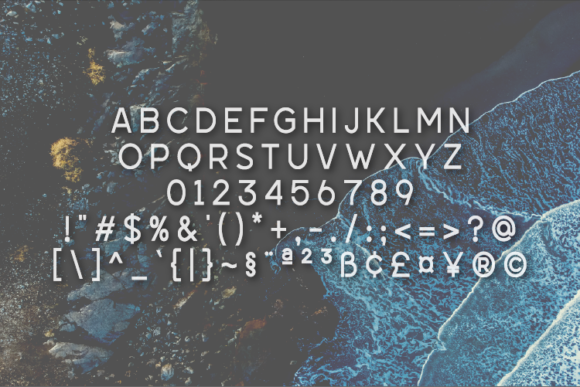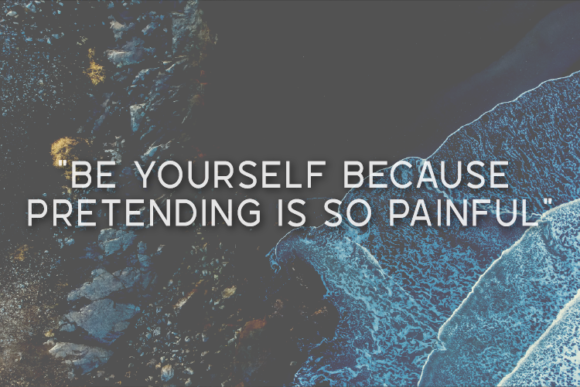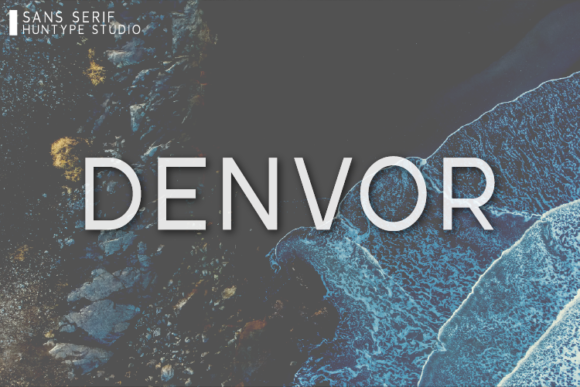
Denvor Font: Elevate Your Designs with Clean and Simple Sans Serif Typography
In the world of typography, a good font can make all the difference in elevating your designs and setting them apart from the rest. For designers and crafters looking for a versatile and visually appealing font, Denvor Font is an excellent choice. This clean and simple lettered sans serif font is perfect for a wide range of projects, from branding and advertising to digital media and crafting.
What is Denvor Font?
Denvor Font is a modern sans serif font that boasts a clean and simple design. Its sleek lines and minimalist aesthetic make it an incredibly versatile font that can be used for a variety of purposes. Whether you’re creating a logo, brochure, or social media graphic, Denvor Font is sure to make a lasting impression.
Key Features of Denvor Font
- Clean and Simple Design: Denvor Font features a clean and simple design that is easy to read and visually appealing.
- Sans Serif: As a sans serif font, Denvor Font is perfect for digital media and projects where a modern look is desired.
- Lettered: Denvor Font is a lettered font, making it perfect for hand-drawn or illustrated designs.
- Versatile: Denvor Font can be used for a wide range of projects, from branding and advertising to digital media and crafting.
Benefits of Using Denvor Font
So, why choose Denvor Font for your next project? Here are just a few benefits of using this versatile font:
- Elegant and Sophisticated: Denvor Font adds an elegant and sophisticated touch to any design, making it perfect for projects where a professional look is desired.
- Easy to Read: The clean and simple design of Denvor Font makes it easy to read, even at small sizes.
- Customizable: As a digital font, Denvor Font can be easily customized to fit your project’s needs, from adjusting the size and color to adding effects and textures.
- Time-Saving: With Denvor Font, you can save time and effort in your design process, as its versatility and legibility make it easy to use in a variety of contexts.
Who Can Benefit from Denvor Font?
Denvor Font is perfect for a wide range of designers and crafters, including:
- Graphic Designers: Whether you’re creating logos, brochures, or social media graphics, Denvor Font is a great addition to your font library.
- Digital Artists: Denvor Font is perfect for digital artists looking for a clean and simple font to use in their illustrations.
- Crafters: From card making to scrapbooking, Denvor Font is a versatile font that can be used in a variety of crafting projects.
- Marketeers: Denvor Font is a great choice for marketers looking for a professional and elegant font to use in their branding and advertising materials.
Tips for Using Denvor Font
Here are a few tips for getting the most out of Denvor Font:
- Experiment with Sizes: Denvor Font looks great at a variety of sizes, from small and delicate to large and bold.
- Play with Colors: The clean and simple design of Denvor Font makes it easy to use in a variety of colors and color combinations.
- Add Effects and Textures: Consider adding effects and textures to Denvor Font to give it a unique and personalized look.
- Pair with Other Fonts: Denvor Font pairs well with a variety of other fonts, making it easy to create visually appealing and interesting typography.
In conclusion, Denvor Font is a versatile and visually appealing font that is perfect for a wide range of design and crafting projects. Its clean and simple design, elegant and sophisticated aesthetic, and ease of use make it a great addition to any font library. Whether you’re a graphic designer, digital artist, crafter, or marketer, Denvor Font is sure to elevate your designs and help you achieve your creative goals.